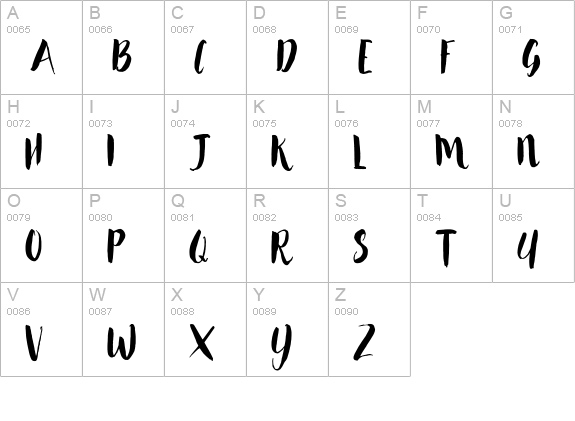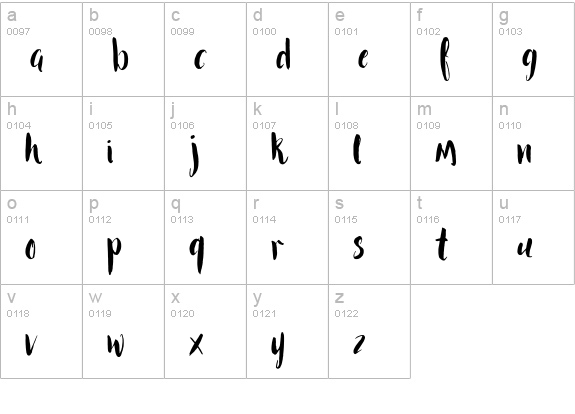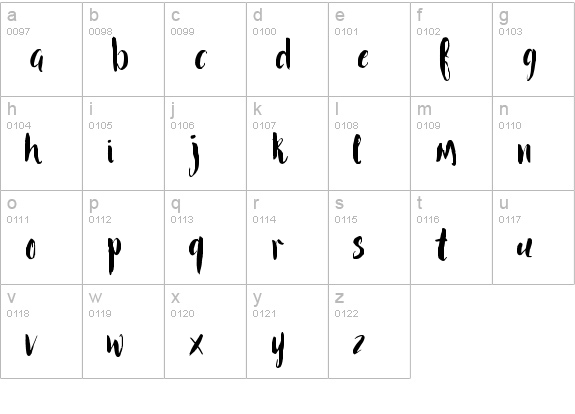
Kaizoku Font Details
Kaizoku font is a bold and dynamic typeface that captures the adventurous spirit of a fearless pirate. With its rugged edges and strong presence, this font is perfect for creating eye-catching designs that demand attention. Whether you're working on a poster for a swashbuckling event or designing a logo for a daring brand, Kaizoku font is sure to make a statement. Best of all, Kaizoku font is completely free to download at FontsMarket.com. This means you can easily add this unique typeface to your collection without breaking the bank. So why wait? Unleash your creativity with Kaizoku font and set sail on a typographic adventure unlike any other.